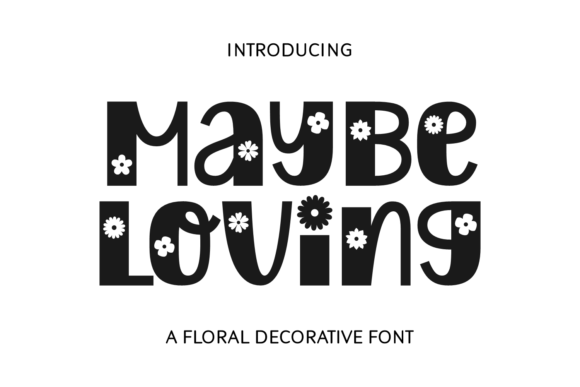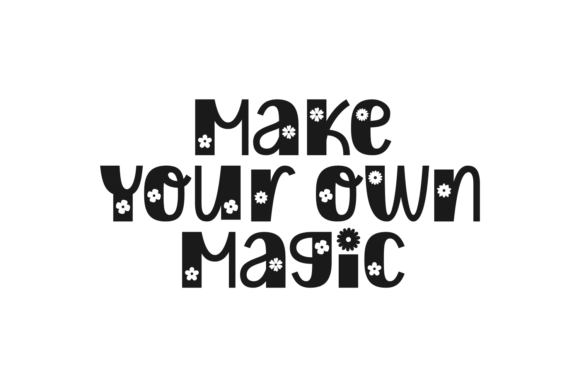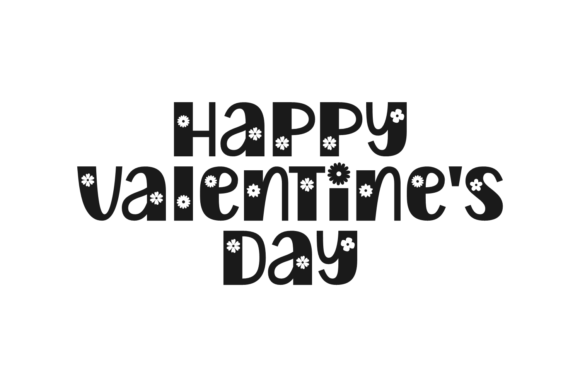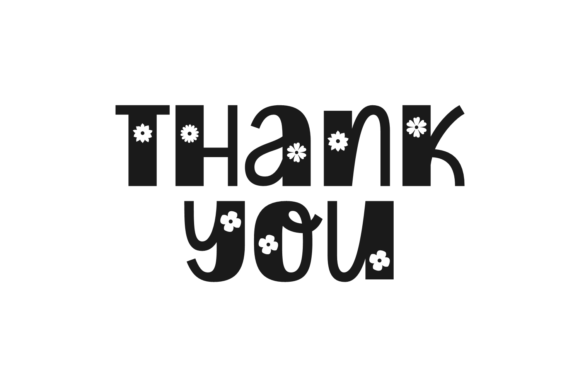
Maybe Loving Font: A Sweet & Cute Floral Decorative Font
About the Maybe Loving Font
From logos to headlines, the Maybe Loving Font is the perfect choice for making a lasting impression. Maybe Loving is a floral decorative font that blooms with simplicity and sweetness. Its charming design features delicate floral elements, adding a touch of nature to your text. Perfect for projects that radiate love and warmth, Maybe Loving brings a soft and inviting feel to your designs. Whether it’s invitations, greeting cards, or any creative endeavor, this font adds a hint of floral elegance, making your text as lovely as a garden in bloom.
Maybe Loving Font is ideally suited for headlines, short text blocks on branding materials, invitations, and social media graphics where its delicate floral details can shine. It excels in projects requiring a romantic or whimsical touch, such as wedding stationery or product packaging for beauty or floral-related businesses. However, its ornate nature makes it unsuitable for body text or UI elements; the intricate details would prove illegible and distracting at smaller sizes or in continuous text.
Pairing Maybe Loving with a clean sans-serif like Lato or Open Sans provides a strong contrast, balancing the font’s delicate nature with modern readability. For a more sophisticated look, consider pairing it with a classic serif font such as Garamond or Playfair Display. These pairings create visual harmony and prevent the design from feeling overly busy.
The font projects a soft, romantic, and friendly personality. Its overall aesthetic is best described as charming and elegant, making it a versatile choice for projects that require a touch of delicate femininity without being overly fussy or childish.